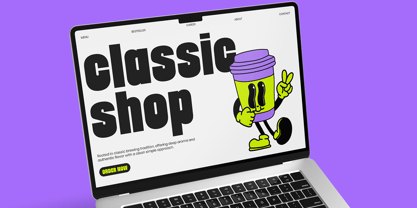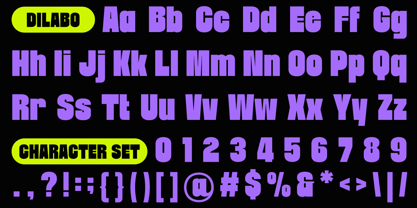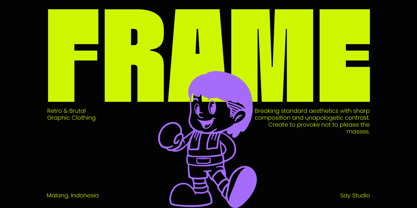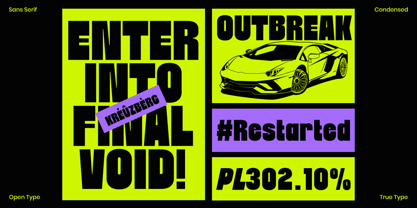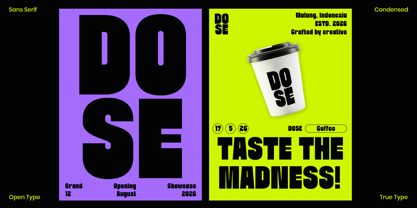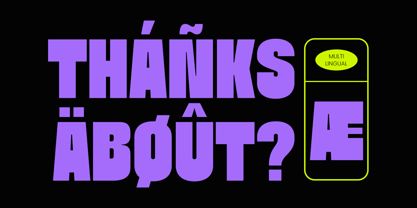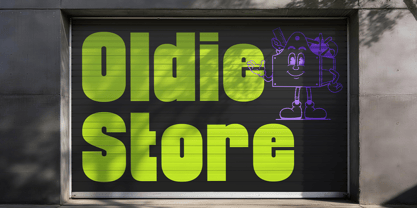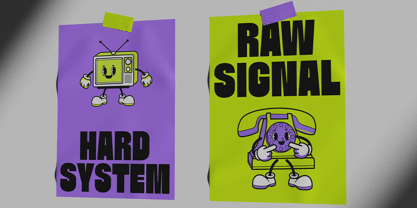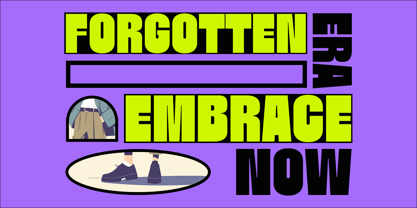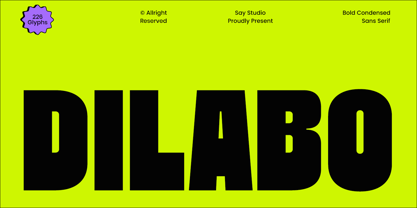
Dilabo
von Say Studio
Die Schriftfamilie Dilabo wurde von Mussyayin entworfen und von Say Studio veröffentlicht. Dilabo enthält 2 Stile und Familienpaketoptionen. Mehr über diese Familie
Dilabo is a bold condensed sans serif font built to create powerful visual impact in modern branding and display design. With its tall proportions, thick letterforms, and confident geometric structure, this font delivers a strong urban personality that instantly grabs attention. Perfect for designers who want a clean yet aggressive typographic style for standout creative projects.
Designed with versatility in mind, Dilabo works beautifully for logo design, sports branding, streetwear, posters, packaging, magazine headlines, YouTube thumbnails, social media graphics, and modern advertising. Its condensed shape helps maximize space while maintaining readability and bold character, making it ideal for strong visual hierarchy and impactful compositions.
Whether you are building a futuristic brand identity, creating retro-inspired posters, or designing energetic sports visuals, Dilabo brings a modern bold aesthetic that feels professional, trendy, and highly marketable. This font is crafted to help your designs stand out with a confident and memorable visual presence.